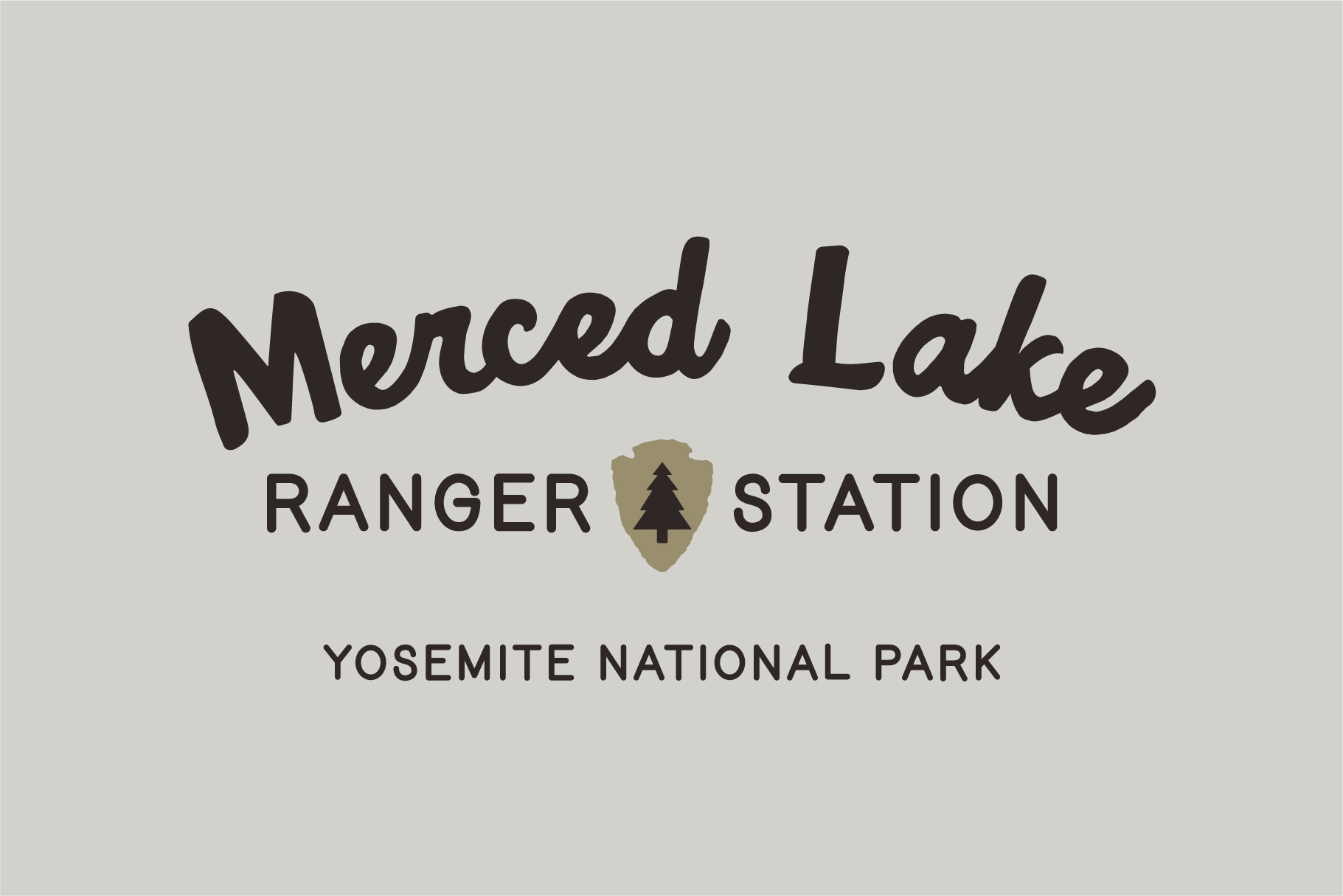
National Forest Font
National Forest is a font duo inspired by the National Park Service signs that are all made using a router bit. It was designed to put the timeless nostalgia of national park signs into a digital typeface.